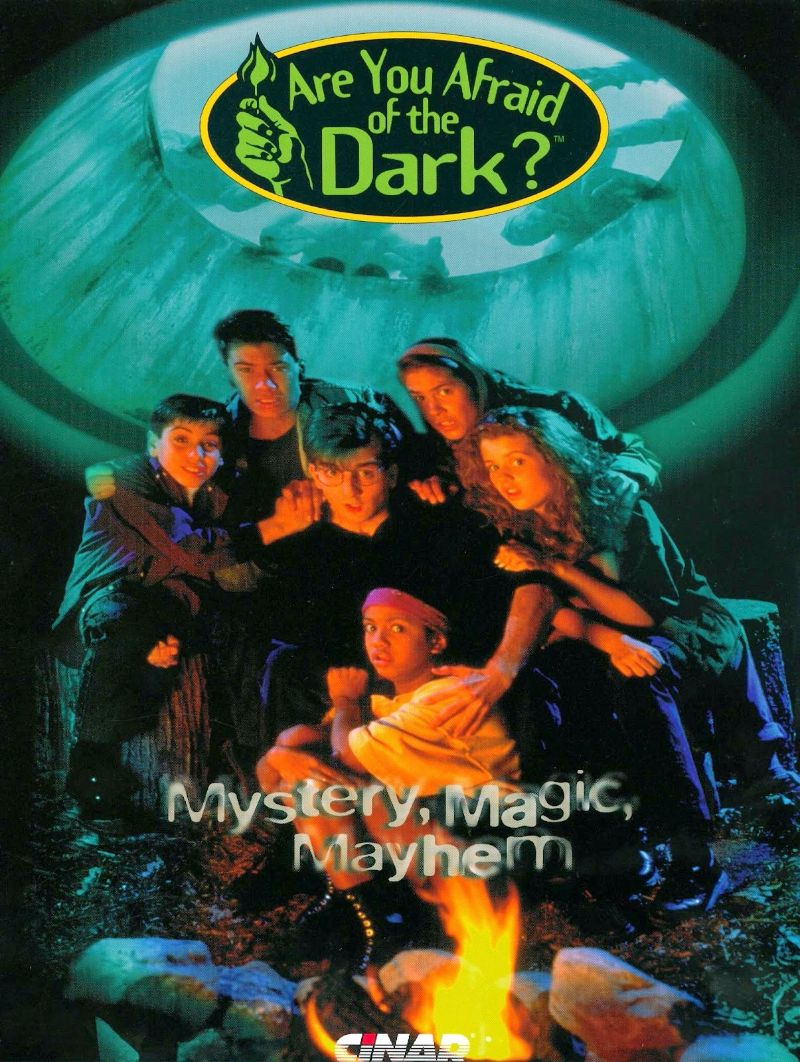
Are You Afraid of the Dark Font
Fonts in UseAre You Afraid of the Dark? is a Canadian horror anthology series that originally aired from 1990 to 2000, and was later revived in 2019. Each episode features a group of teenagers called "The Midnight Society" who gather around a campfire to tell scary stories, which are dramatized for the audience.
The TV series poster title features the experimental sans-serif typeface Template Gothic designed by Barry Deck in 1989. However, the font used to set the title at the beginning of each episode is ITC Benguiat Bold designed by Edward Benguiat.